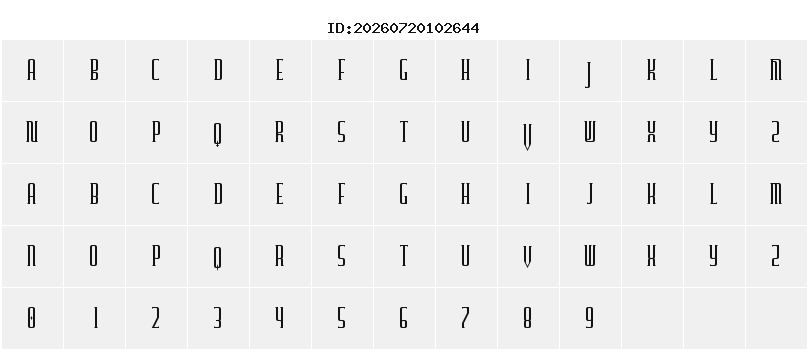
Furgatorio Preview
• Font Name: Furgatorio
• Full Font Name: Furgatorio Regular
• Designer: Aaron Amar
• Description: ‚ÄúFurgatorio‚Äù was built with FontStruct
About Furgatorio.ttf
Furgatorio.ttf is a modern, elegant sans-serif font designed for ultimate readability and visual harmony. Perfect for branding, headlines, web design, and print materials.